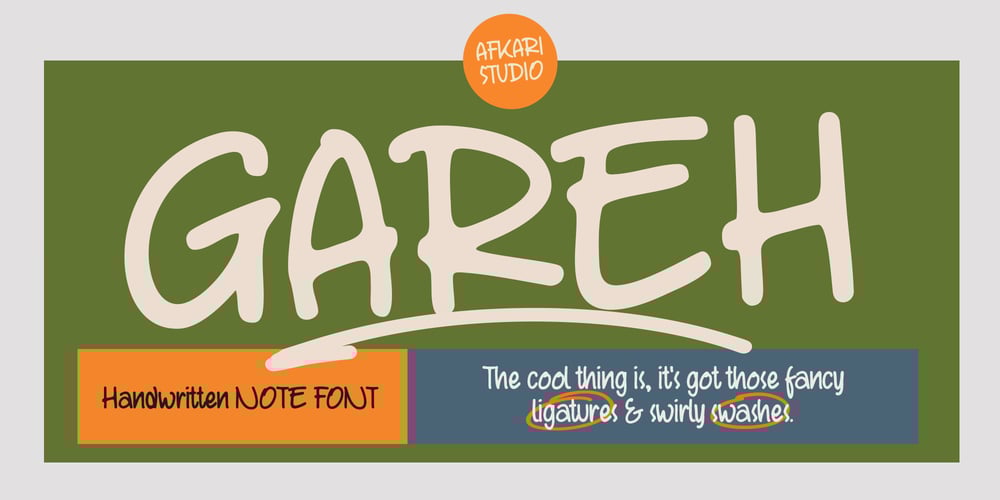
Gareh Note Font Family was designed by Musthafa Kamal Emje and published by Afkari Studio. Gareh Note contains 2 styles and family package options. Introducing Gareh Handwritten Marker Note Font, a font that merges the liveliness of handwritten script with a unique, natural touch. Crafted to captivate attention and infuse a fresh vibe into your designs, Gareh strikes the perfect balance between the elegance of handwriting and a casual feel. With expressive characters and authentic marker accents, each letter exudes warmth and originality.Gareh is the ideal solution for design projects seeking a personal and creative touch. Whether you’re creating posters, greeting cards, logos, or working on branding projects, this font will leave an unforgettable impression. Every stroke brings inviting warmth and inspirational vibes.With Gareh, you can add a new dimension to your messages. Easy to use, this font grants the freedom to express limitless creativity. Get Gareh now and discover how each letter can lend that special handmade touch to every design of yours.”Highlighted Features:– Uppercase, Lowercase, Number, and Punctuation– Special alternates and ligatures– Works on PC & Mac– Simple installations– Accessible in Adobe Illustrator, Adobe Photoshop, Adobe InDesign, and even work on Microsoft Word– Fully accessible without additional design software.– Mültîlíñgúãl Sùppört for; ä ö ü Ä Ö Ü ß ¿ ¡Hope you enjoy our font and this font is a useful font for your projects!